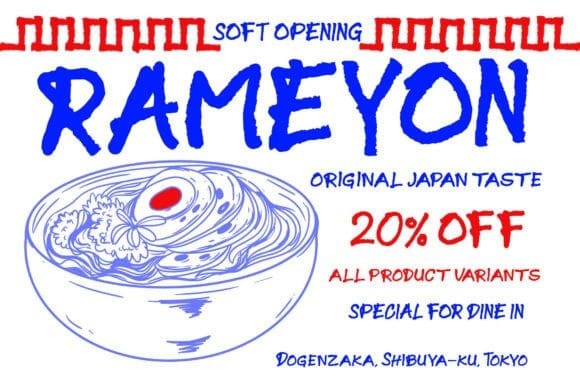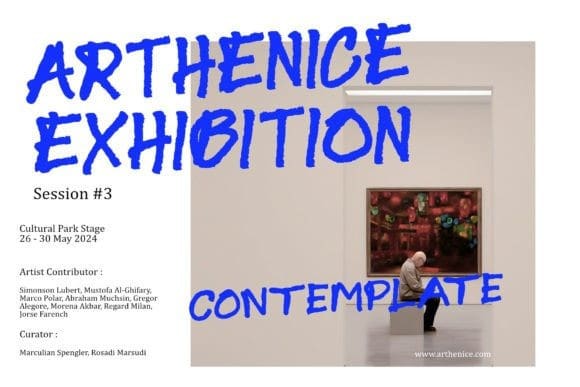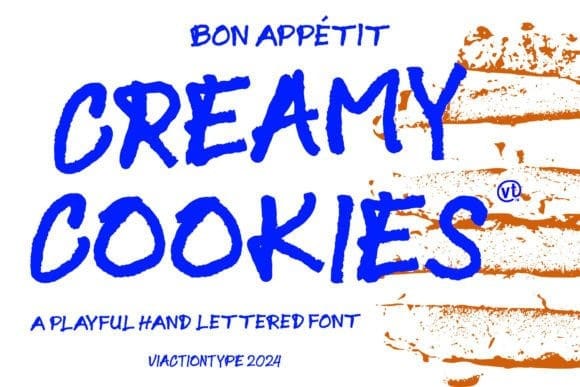
Creamy Cookies Font
Creamy Cookies Font – a delectable handwritten marker font that adds a sprinkle of charm to your designs. With its playful strokes and delightful curves, this font exudes a sense of whimsy and creativity, reminiscent of handwritten notes on a cozy afternoon. Indulge your creative cravings and infuse your projects with a touch of sweetness. Perfect for branding, packaging, invitations, and more, “Creamy Cookies” adds a deliciously unique flavor to any design palette.